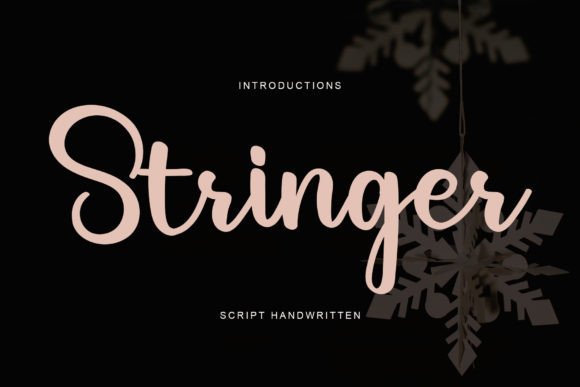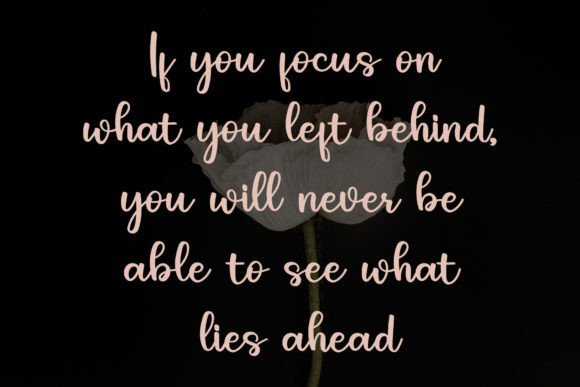
About Stringer
Stringer is a stylish and dainty script font. It is suitable for any projects such as logos, branding projects, labels, photography, watermark, special events, and all your other lovely projects that need elegant typography.